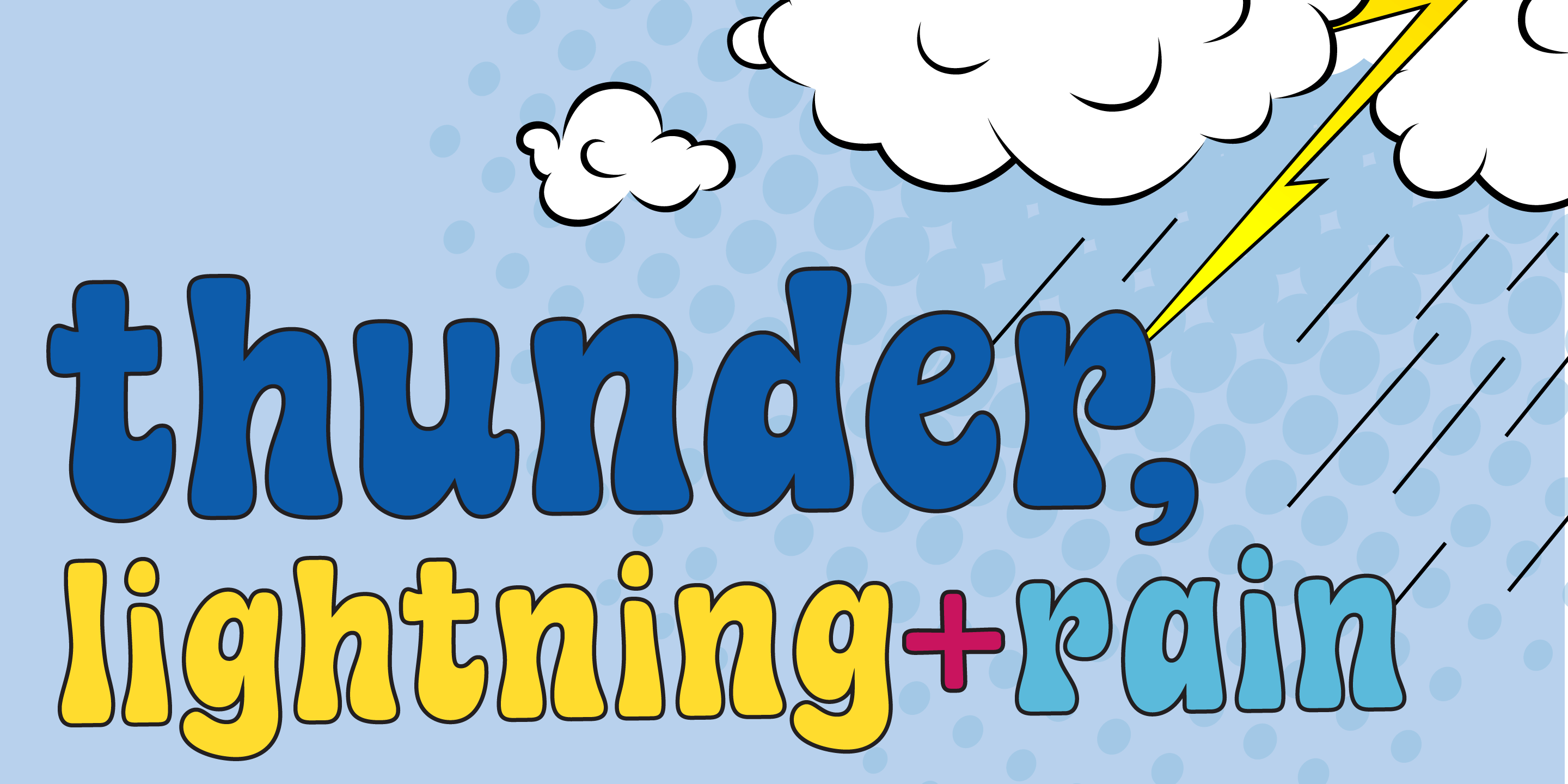
The Janice Font is perfect for friendly branding, lifestyle magazines, children's books, casual marketing materials, boutique signage, social media graphics, personal blogs, and approachable website designs. This versatile typeface excels in family-oriented businesses, creative studios, lifestyle brands, educational materials, and any project seeking to communicate warmth, accessibility, and genuine human connection through thoughtful typography.
What makes Janice Font so exciting is its delightful personality that combines professional reliability with charming approachability, creating an instantly likeable and memorable aesthetic. The font features softly rounded letterforms with gentle curves, friendly proportions, and subtle character variations that give it a warm, human touch. Its inviting design philosophy makes readers feel comfortable and welcome, establishing an immediate emotional connection that enhances brand affinity and user engagement.
The Janice Font family includes multiple weight options: Light, Regular, Medium, Semi Bold, Bold, and Extra Bold versions, each available in upright and italic styles. Additionally, it offers playful alternates, contextual ligatures, and decorative elements that add personality to designs. The family includes extended character sets with multilingual support, ensuring global accessibility while maintaining its distinctive friendly character.
When you choose Janice Font Free Download, you're investing in a typeface that brings genuine warmth and personality to your creative projects. This font seamlessly balances professionalism with approachability, making it ideal for brands that want to appear competent yet friendly. The carefully crafted letterforms ensure excellent readability while the subtle design details create memorable brand experiences that resonate with diverse audiences.
Whether you're developing family-friendly marketing campaigns, creating engaging educational content, designing welcoming website interfaces, or establishing a brand identity that feels personal and trustworthy, this font delivers exceptional emotional impact. The Janice Font transforms your communications into warm, inviting messages that build genuine connections with your audience and reinforce your brand's commitment to human-centered design.